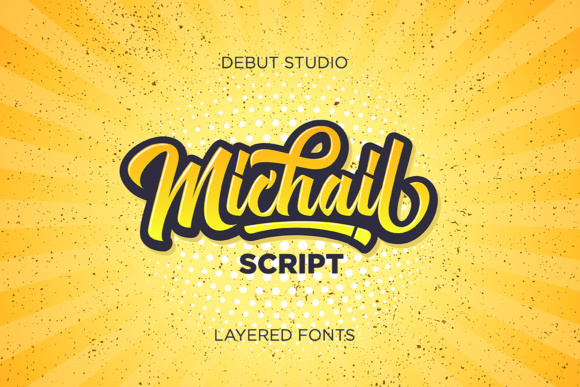
Prepare to captivate your audience with the alluring Michail Script Font family!
Crafted by the esteemed Debut Studio, this extraordinary script font boasts a collection of six stunning variations. Each font is meticulously layered, allowing you to create captivating and intricate designs that will leave an unforgettable impression.
Whether you're envisioning a bold logo, a vibrant t-shirt design, or an unforgettable branding experience, Michail Script Font is your key to unlocking limitless creative possibilities. Its energetic and youthful spirit will ignite your passion for design, inspiring you to craft masterpieces that evoke emotions and tell captivating stories.
Embrace the power of Michail Script Font and embark on a journey of self-expression. Let your imagination soar as you create designs that resonate with your audience, leaving them mesmerized and eager for more.